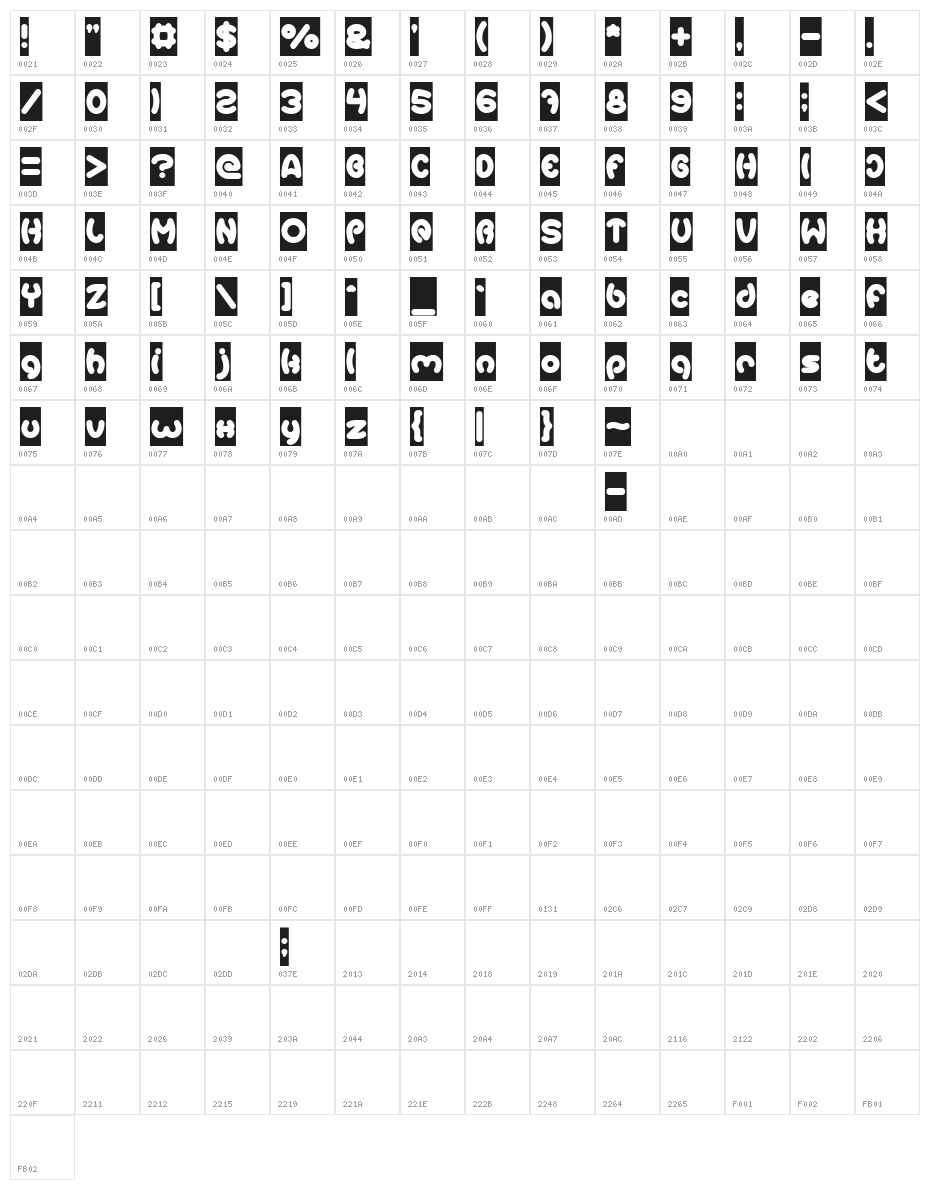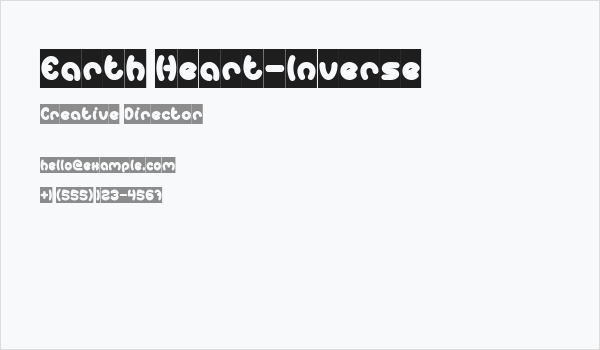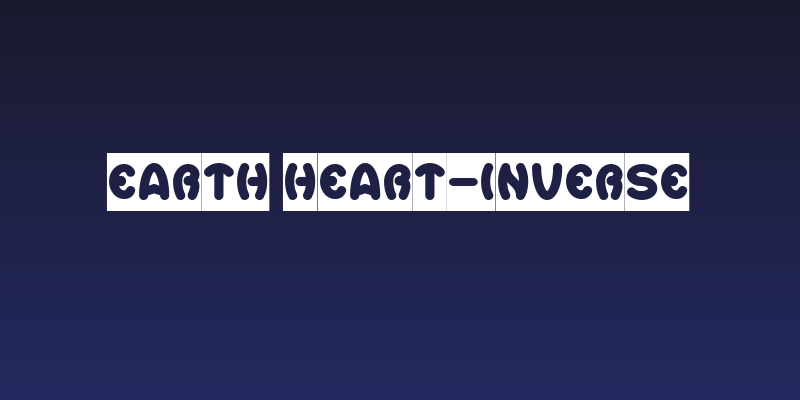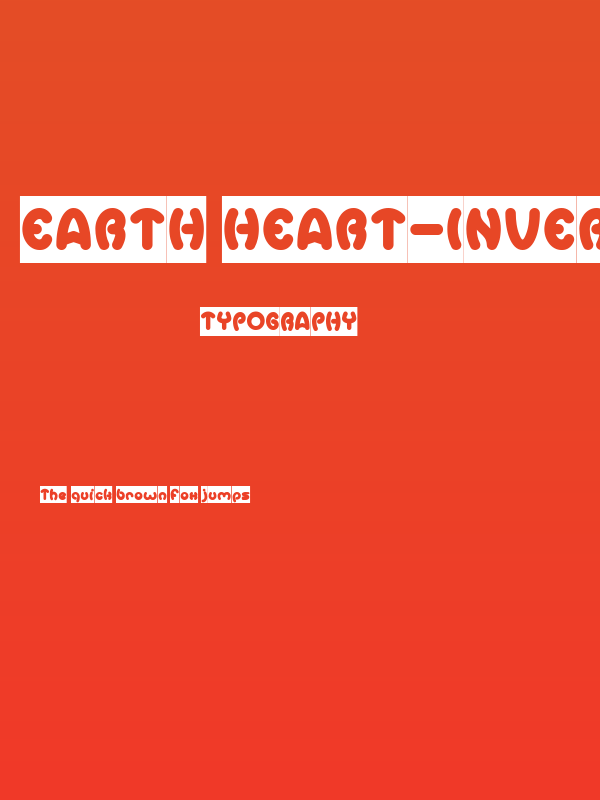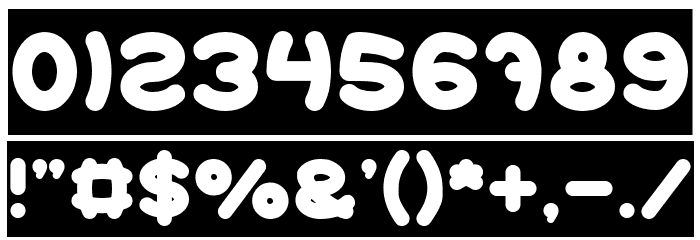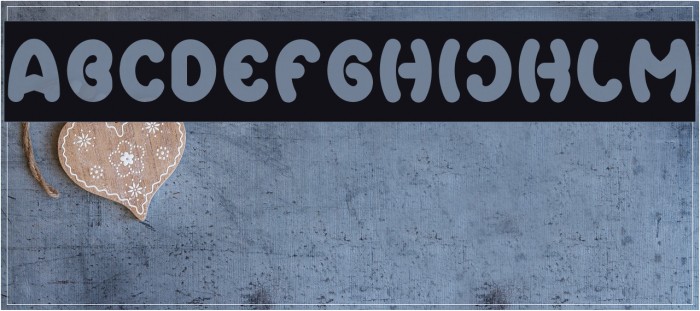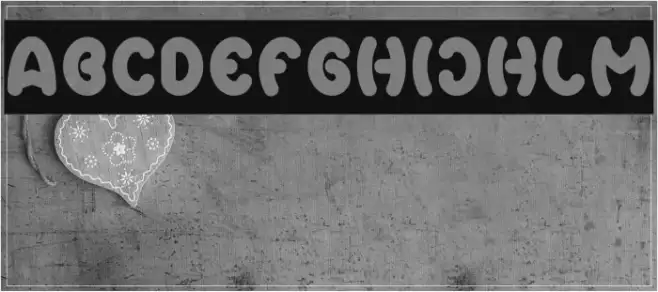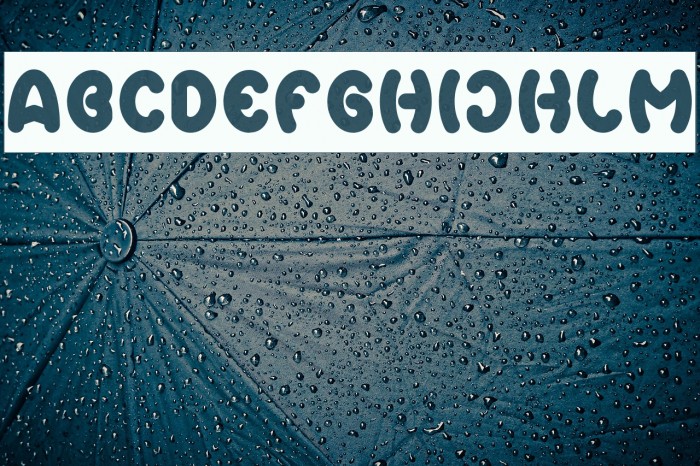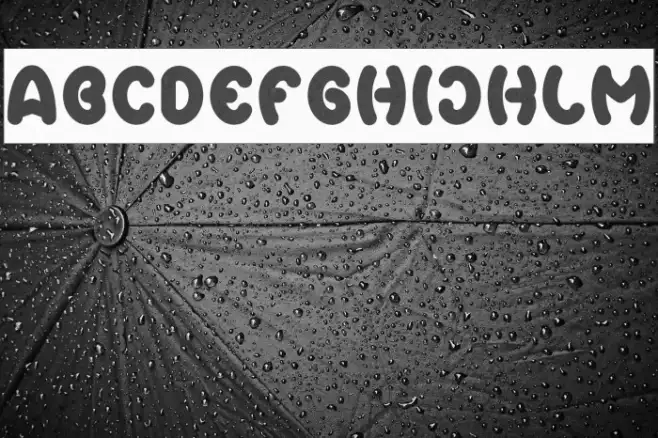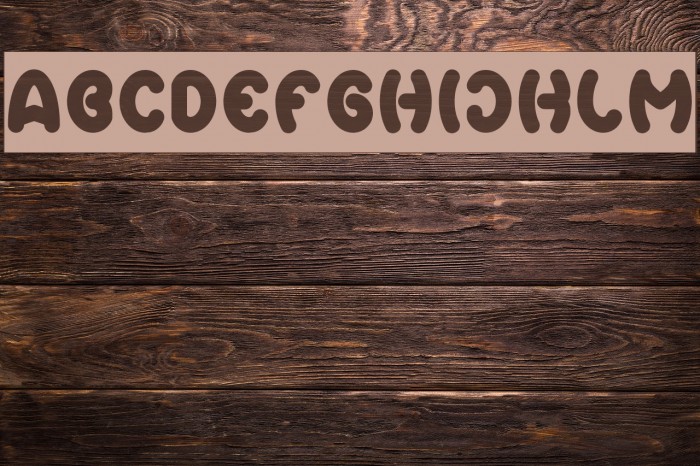
Earth Heart-Inverse Font
Earth Heart-Inverse Description
This playful and bold font features rounded, bubble-like characters that convey a sense of fun and creativity. The letters are thick and have a consistent stroke width, giving them a uniform appearance. The overall design is smooth and flowing, with each character exhibiting a soft, rounded edge that enhances its friendly and approachable style. The font includes both uppercase and lowercase letters, numerals, and a variety of special characters, making it versatile for different design needs. Its unique style is eye-catching and ideal for projects that require a touch of whimsy and charm.
| Overall Style | Playful, Fun |